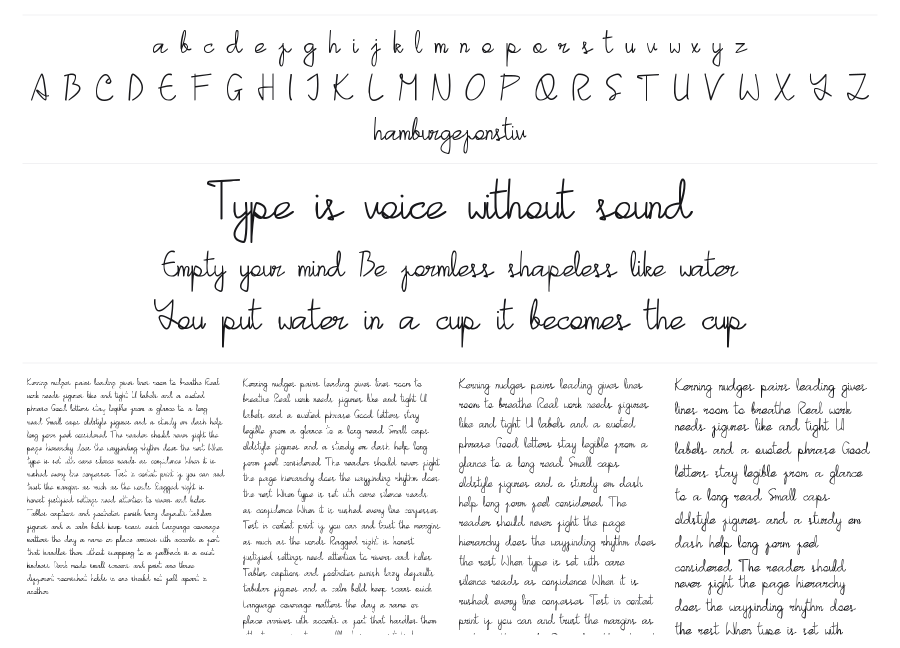
Yudistira
Yudistira is a casual handwritten script with thin, flowing strokes and a natural, relaxed rhythm. The connected letters move across the baseline with the easy confidence of a well-practiced pen, keeping things warm and approachable without trying too hard. It suits branding, packaging, and any project that calls for a personal, human touch.